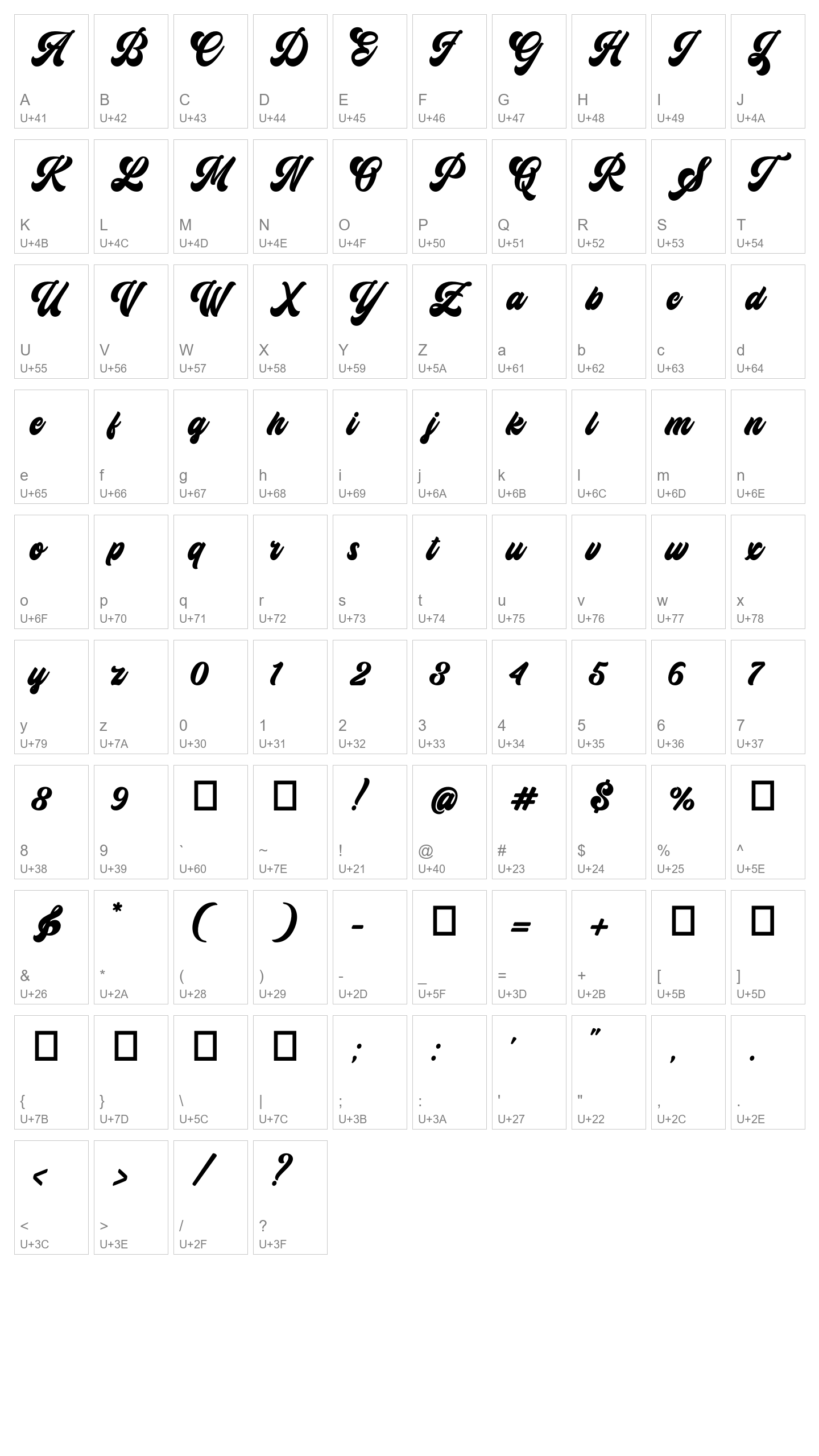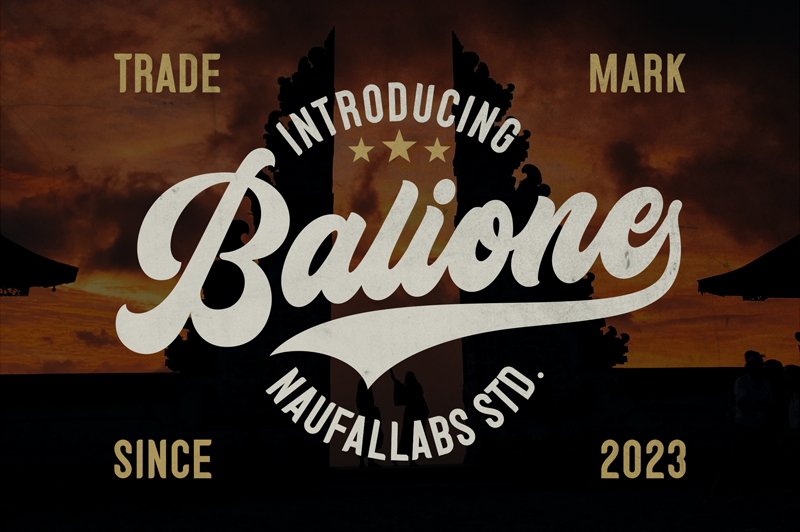
Balione
Balione is a retro font that will take you back in time with its unique and stylish design. With its vintage vibe and classic charm, Balione is the perfect choice for anyone who wants to add a touch of nostalgia to their designs.